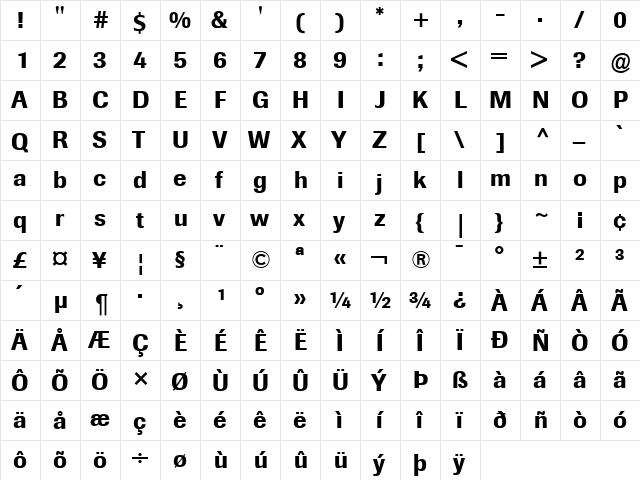
Berthold Imago Bold
Design Context for Berthold Imago Typeface
Berthold Imago takes a measured approach to typography — its balanced proportions and neutral character make it a reliable workhorse for both digital and print work. Its bold stroke weight gives it real presence on the page.
Pro Tip: Pair Berthold Imago with a font of contrasting weight or personality to build a more expressive typographic hierarchy.